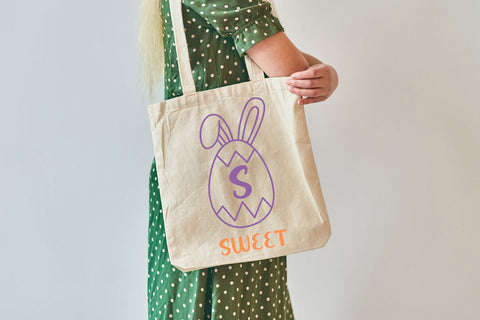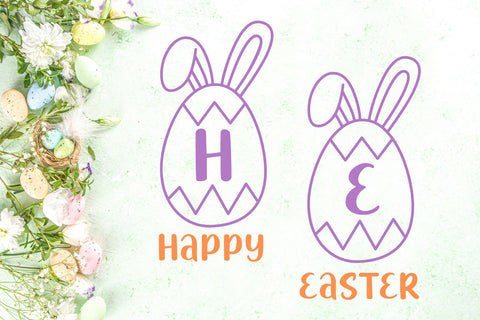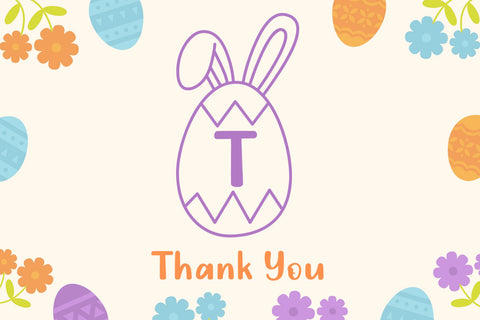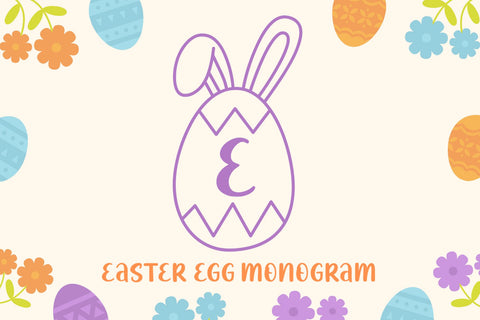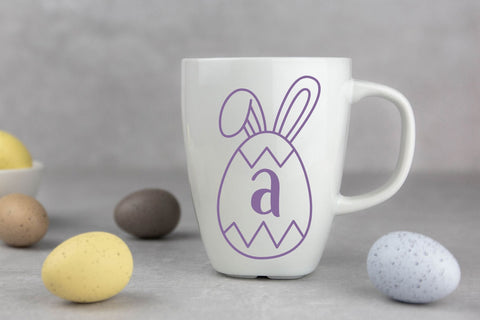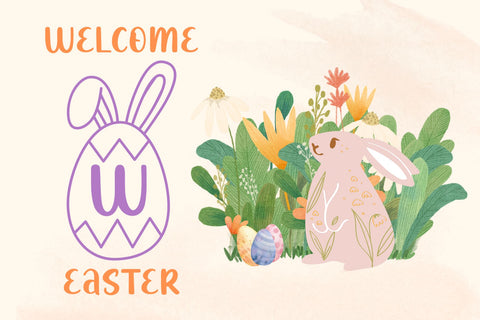
Easter Egg Monogram
Celebrate Easter with style using Easter Egg Monogram, a decorative display font crafted for festive designs.
Each monogram letter is enhanced with playful egg motifs that evoke the warmth and happiness of springtime traditions. The font is versatile enough for greeting cards, party supplies, branding, social media graphics, and craft projects. Its whimsical style captures the excitement of egg hunts and spring celebrations, making every design feel festive and unique.
Easter Egg Monogram adds a creative seasonal accent that turns simple lettering into eye-catching decorative pieces.
Whether you are creating custom Easter baskets, festive apparel, or digital greeting cards, the Easter Egg Monogram font adds a touch of hand-drawn magic to every project. The Easter Egg Monogram typeface is an “easy-to-use font” for DIY crafters and professional designers alike, offering a ready-made decorative solution for egg hunts and spring festivals. Pair it with soft pastel colors and floral elements to create a cohesive, joyful spring aesthetic.
Easter Flower Regular Features :
• (a-z) titling, (a-z) swashes, ligatures
• Support multilingual; ä ö ü Ä Ö Ü ß ¿ ¡
• This font is PUA encoded, which means you can access all of the playful glyphs, swashes, and ligatures with ease!